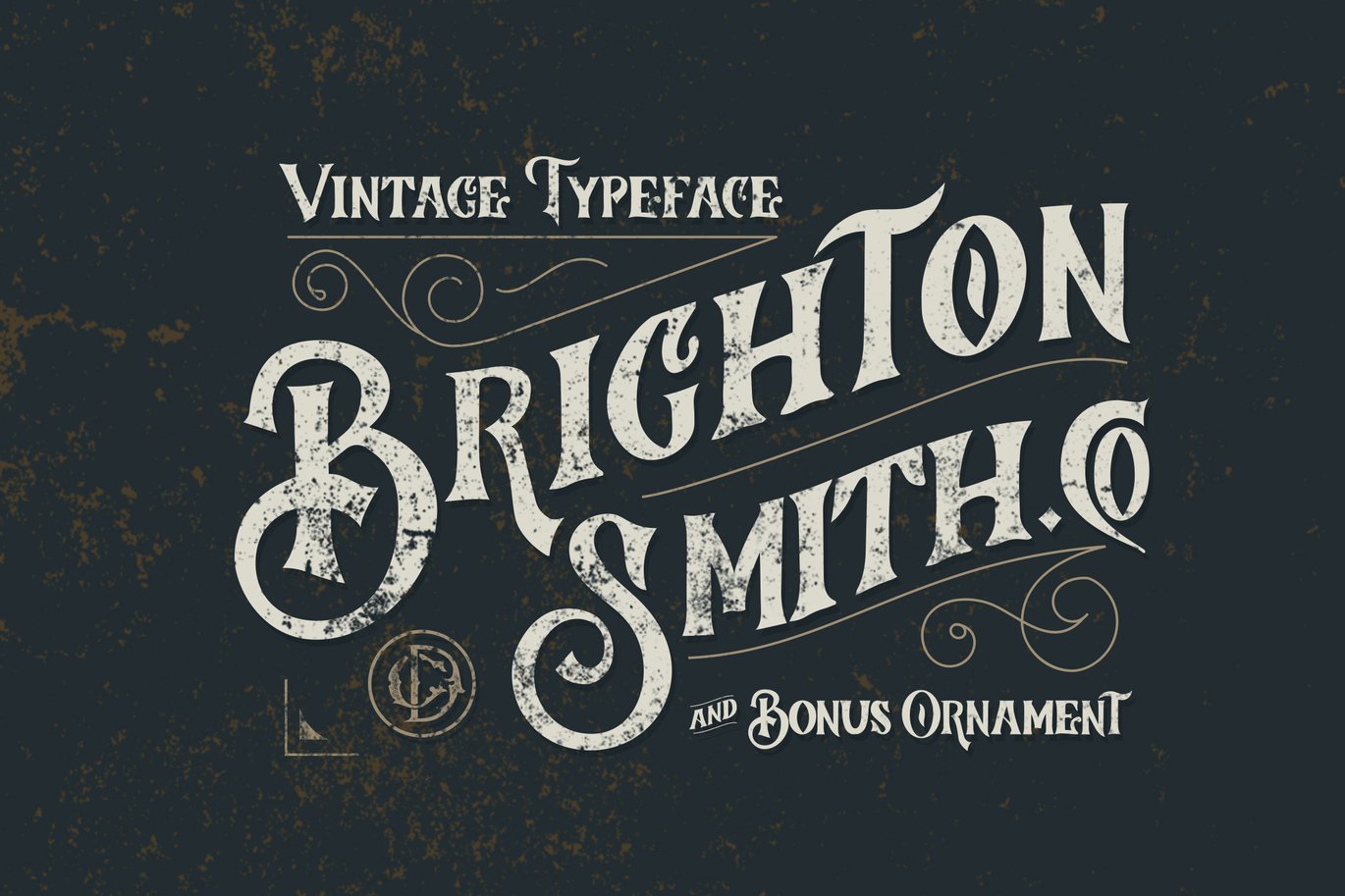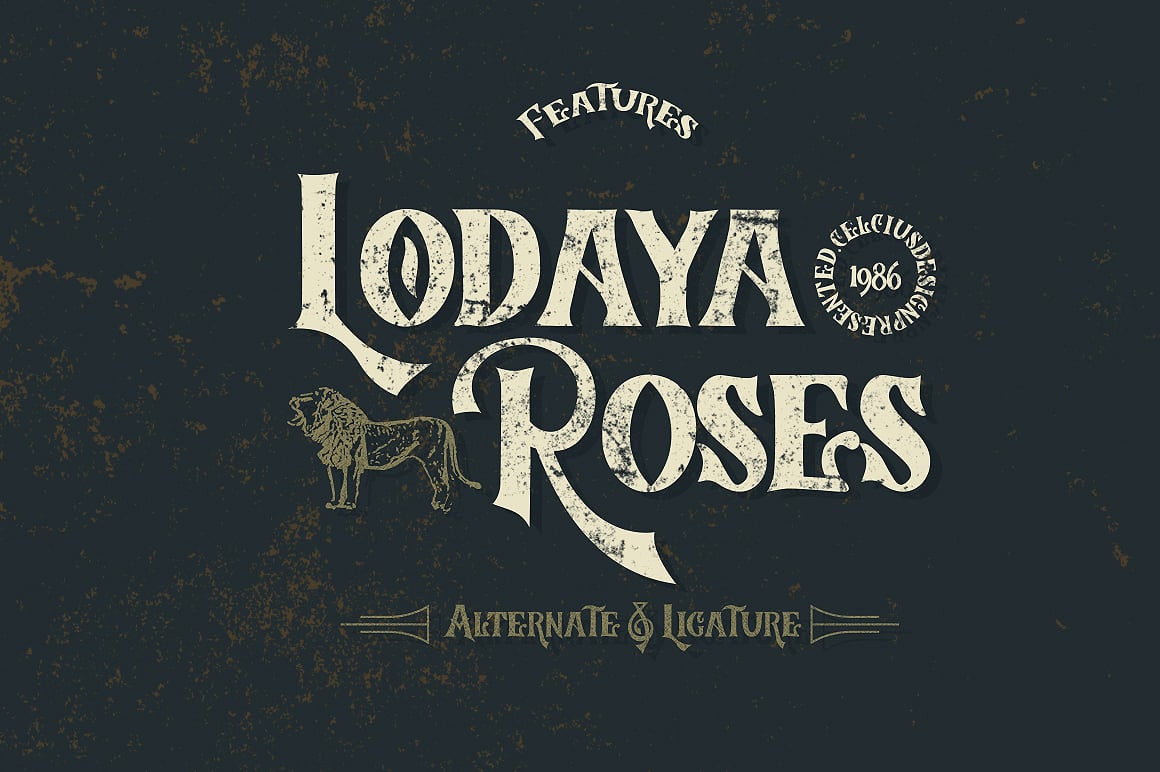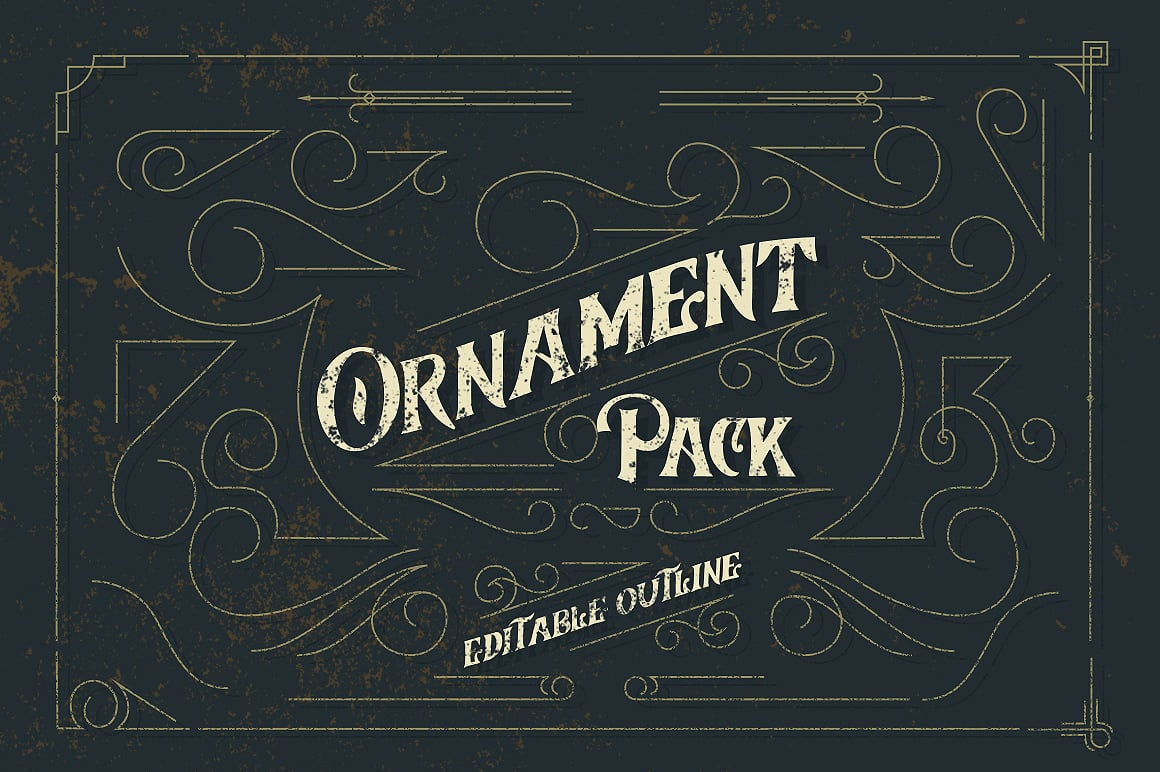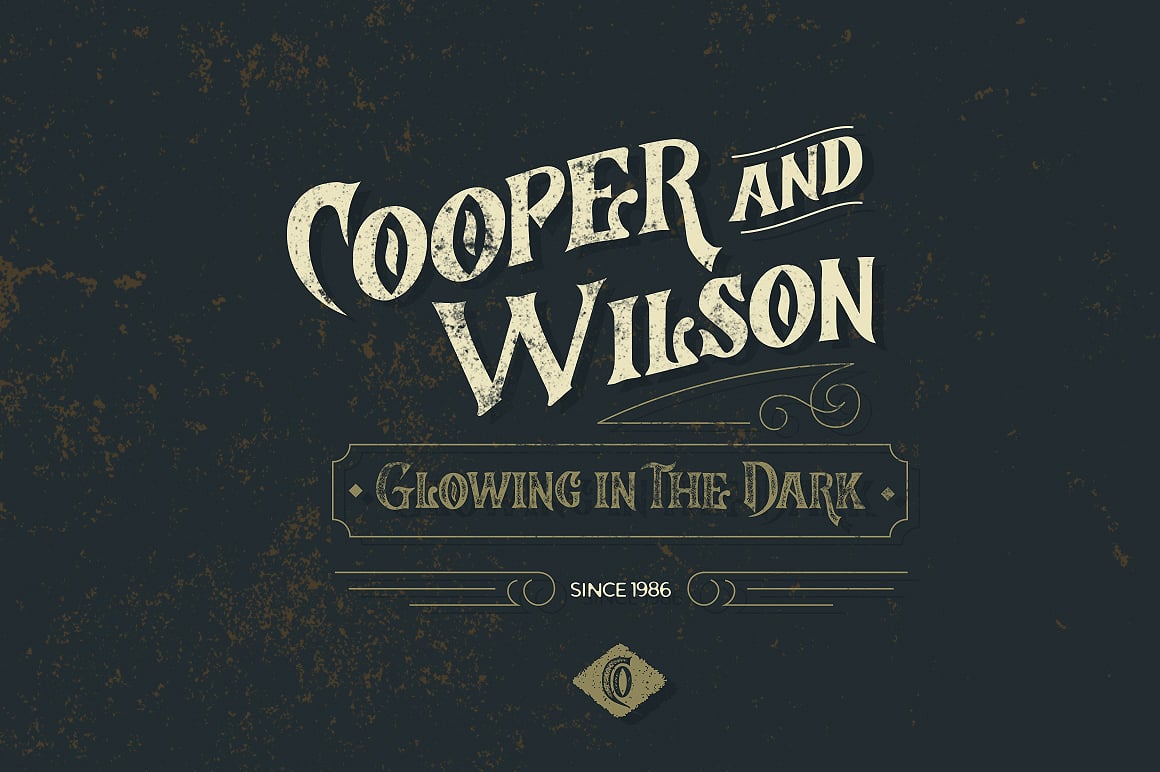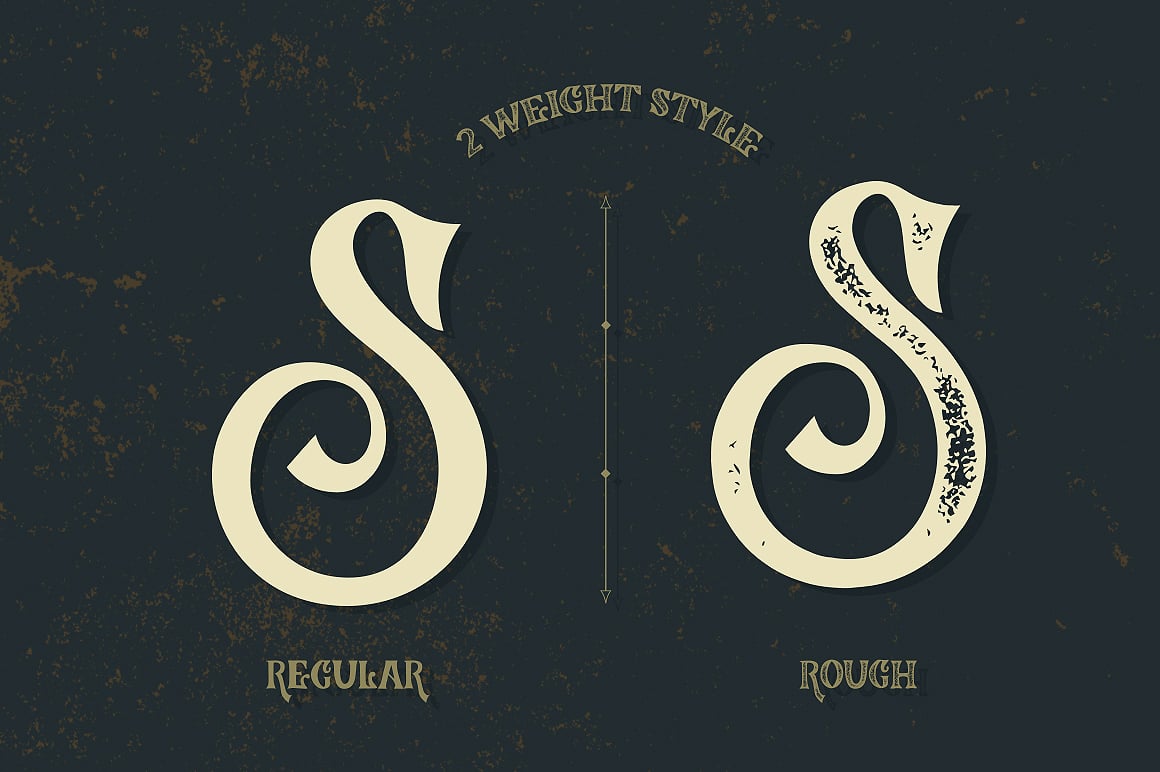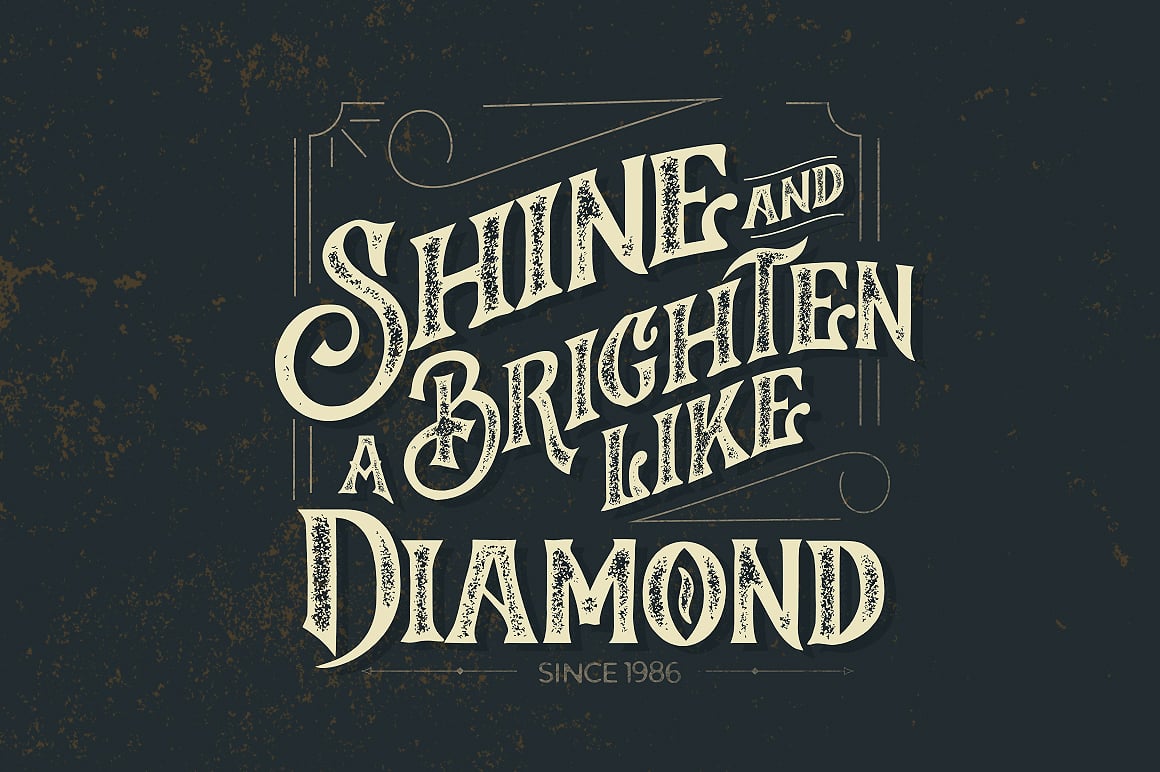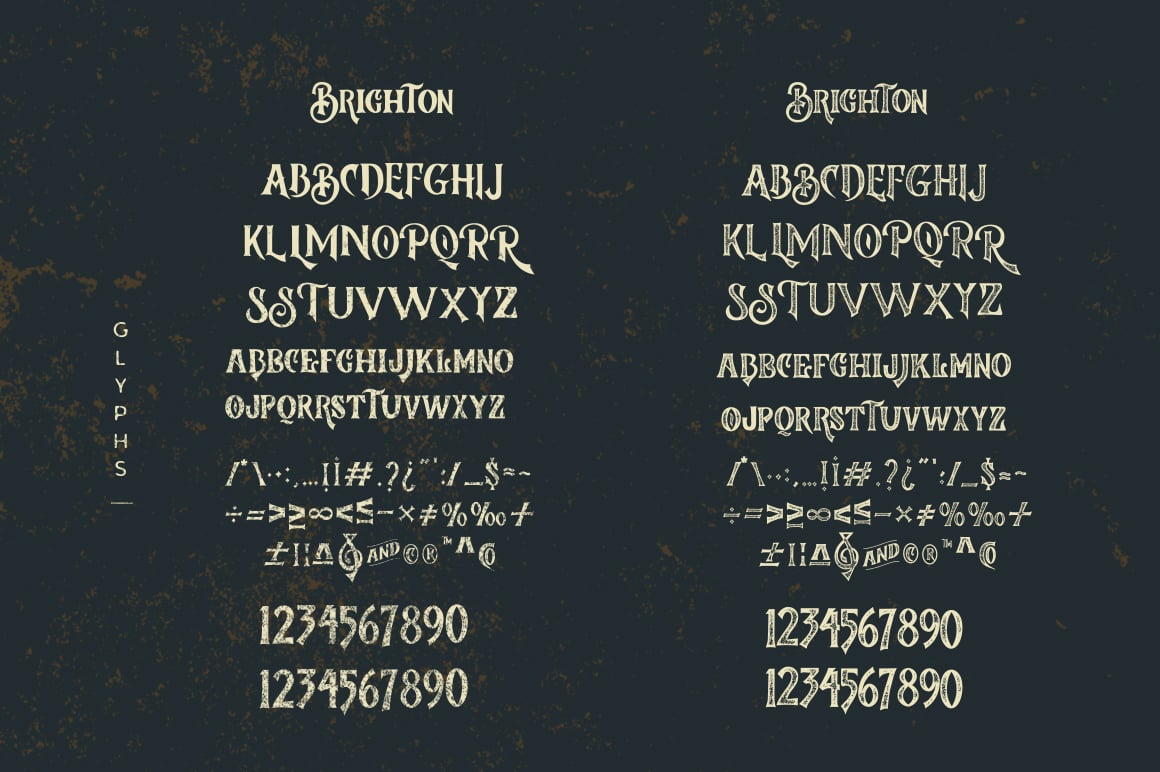
Brighton Smith Typeface
Introduce Brighton & Smith typeface. Create from handdraw style (available with 2 weight style), inspired from vintage old time, suit for header, logo, brand, clothing, poster, Quote including ornament pack to subtle and decorate with this type. Good for vintage theme.
Alternate’s
- ligature
- Old style numbering
- punctual